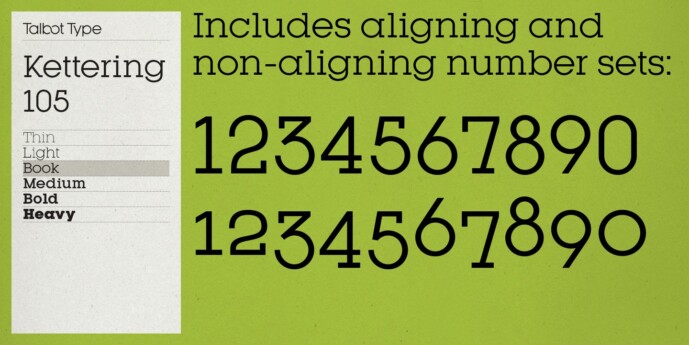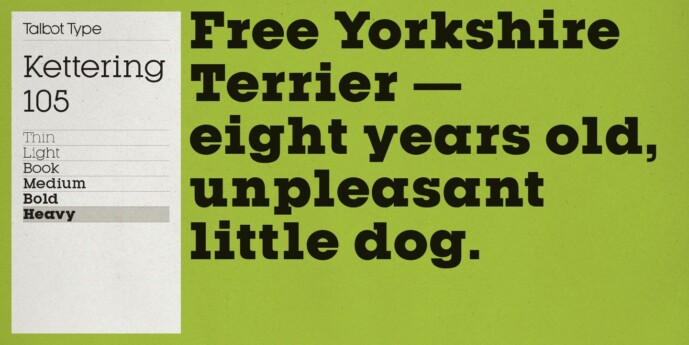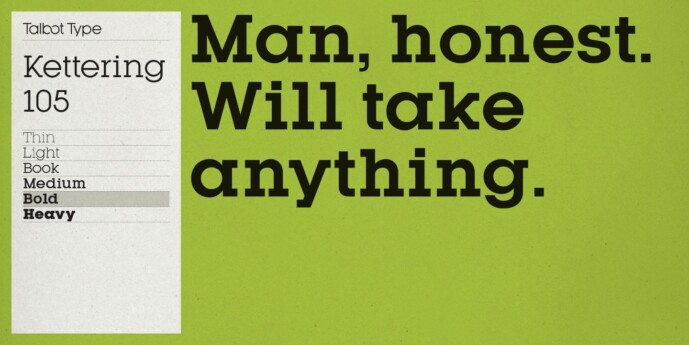
Kettering 105 Font Family
Kettering 105 Font Family is a geometric slab-serif, but has shallow ascenders and descenders for a compact look; this serves to emphasize the smooth geometry of the lower case characters.
This elegant slab-serif combines the traditional look of a serif, with the clean lines of a modern sans-serif. The Kettering 105 family comprises of six weights and is closely related to Kettering 205, similar but with Art Deco tendencies.
Kettering 105 features both aligning and non-aligning (old style) numerals and includes an extended character set, to offer accented characters for Central European languages.